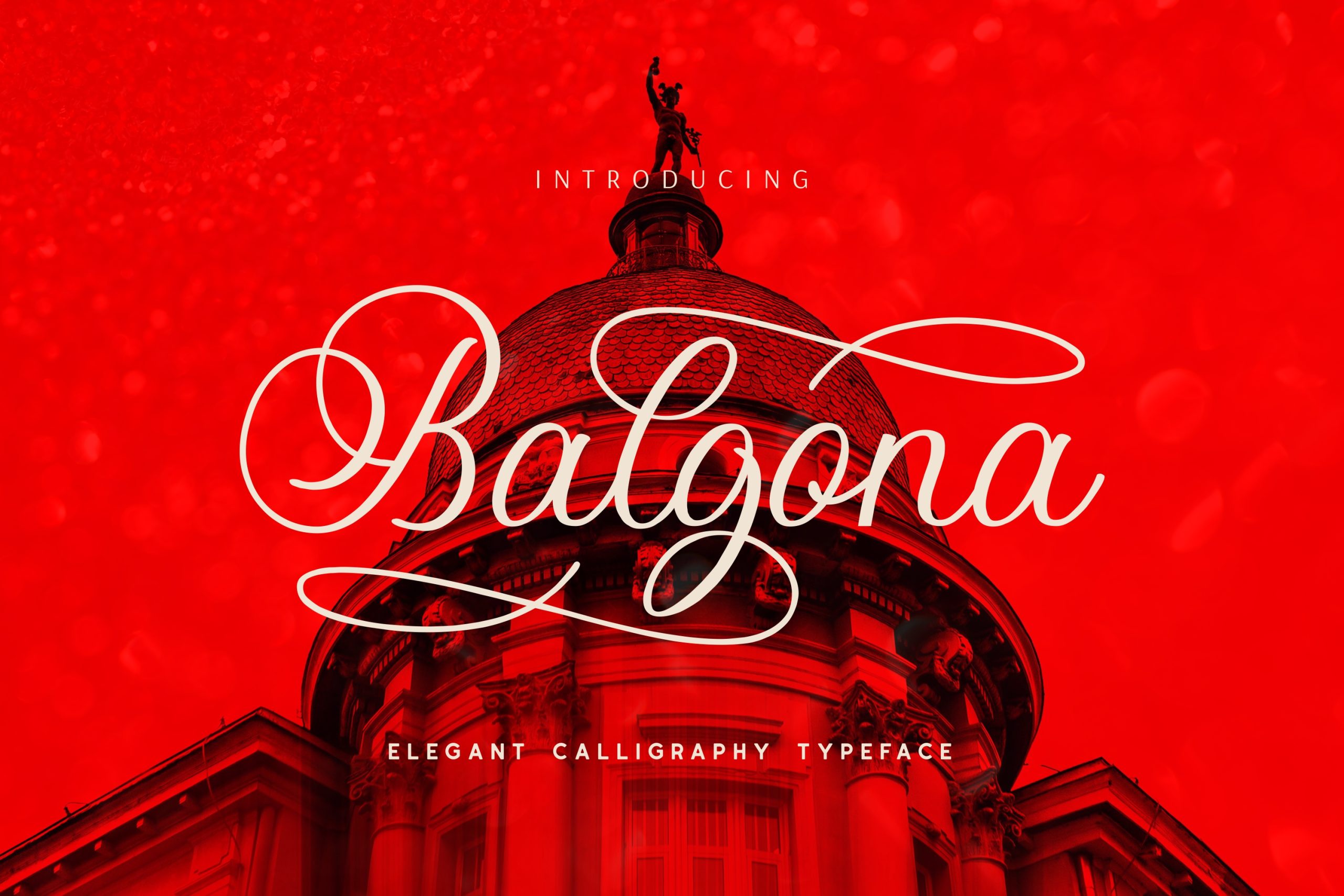
Balgona Font
Balgona This is a high quality calligraphy font. Balgona contains beautifully drawn swashes, which will add a lovely spark to your next design idea!
Balgona Calligraphy Font